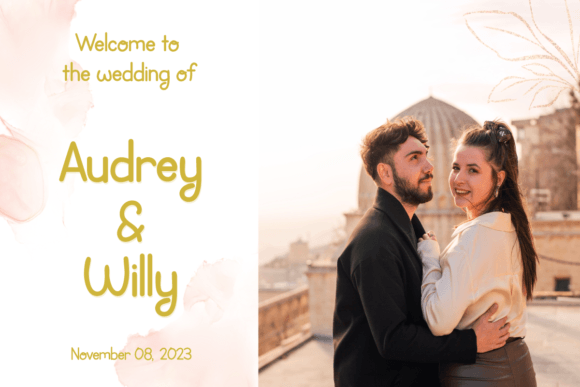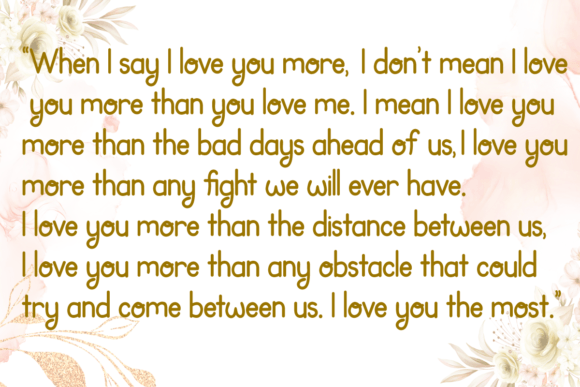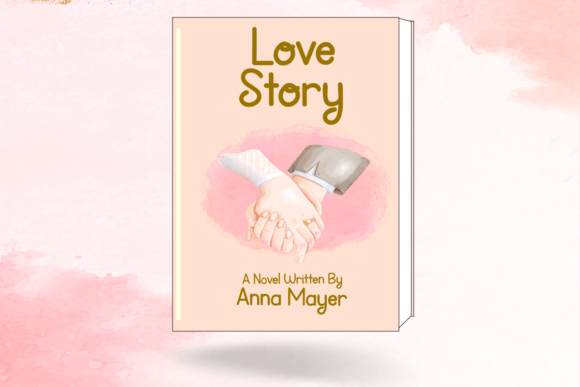
Introduction to Mylazy Font
Have you ever sat at your desk, pen in hand, trying to craft the perfect invitation or card? The scribbles, the smudges, and the imperfect lines all come together to create a one-of-a-kind piece of art. That’s exactly the feeling Mylazy Font aims to capture – the authentic art of handwriting in a digital format.
As a designer, you understand the importance of a high-quality design resource that can elevate your creative projects. With Mylazy Font, you can infuse your designs with a genuine handwritten touch, adding a unique charm to invitations, notes, branding materials, and more. Whether you’re working on a free download or a commercial project, this versatile font is sure to make a statement.
With its effortless elegance and transparent background, Mylazy Font is the perfect addition to your design arsenal. So why settle for a generic font when you can have a distinctive, personalized expression? Explore Mylazy Font now and discover the power of creative expression in your next project.
Key Features of Mylazy Font
- Unique, hand-drawn style with a transparent background, making it easy to overlay on images or other design elements.
- Includes a comprehensive character set with a wide range of glyphs, including Latin, Cyrillic, and Greek alphabets.
- Available in a single weight, making it easy to use in various design contexts without worrying about font pairing.
- Perfect for use in logos, typography-based designs, and other creative projects where a unique, hand-crafted font is desired.
Honest Review: Mylazy Font
I recently had the chance to experiment with the Mylazy Font, and I’m here to share my honest thoughts on this design resource.
Here’s what I like about it: ✨ The font comes with a transparent background, making it easy to work with in various design projects. I was able to use it for a creative project without any issues, and it looked great.
Some of the key features that stood out to me include:
- High-quality design: The font is well-crafted and has a clean, professional look.
However, there are a few limitations: ⚠️ The font selection is limited, and I didn’t find a lot of variation in styles. Additionally, the font may not be suitable for all types of projects, particularly those that require a lot of bold or italic text.
Overall, I was impressed with the Mylazy Font, and I would recommend it to designers who are looking for a high-quality, easy-to-use font for their creative projects.
Mylazy Font is a high-quality, free design resource ideal for creative projects. This versatile font features a transparent background, making it perfect for backgrounds, overlays, and text effects.
Mylazy Font is perfect for:
- Social media graphics and ads
- Infographics and data visualizations
- Wedding invitations and event materials
- Blog posts and articles